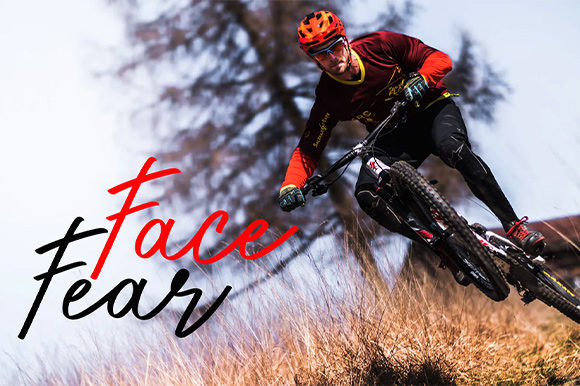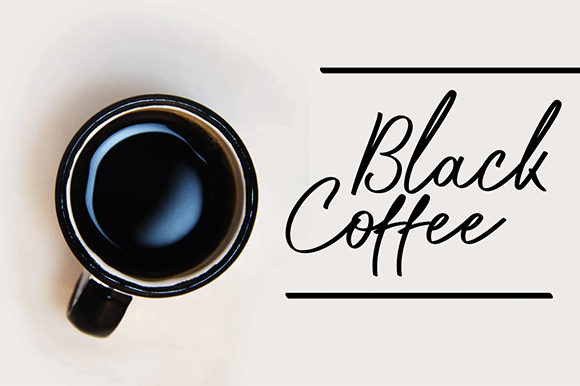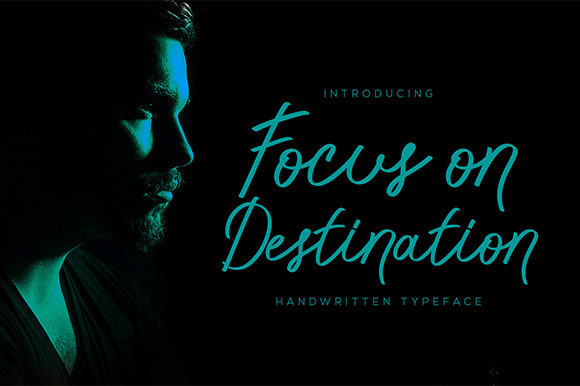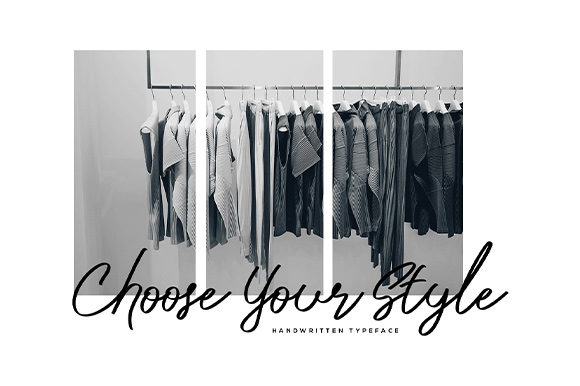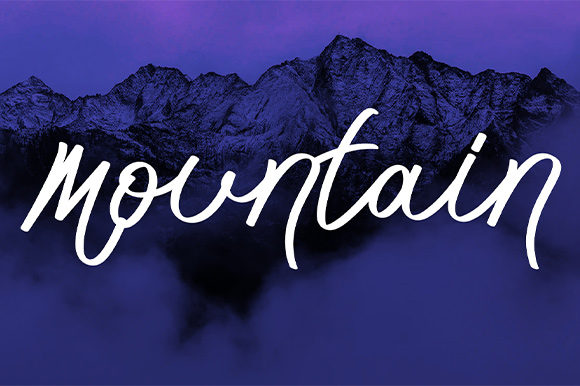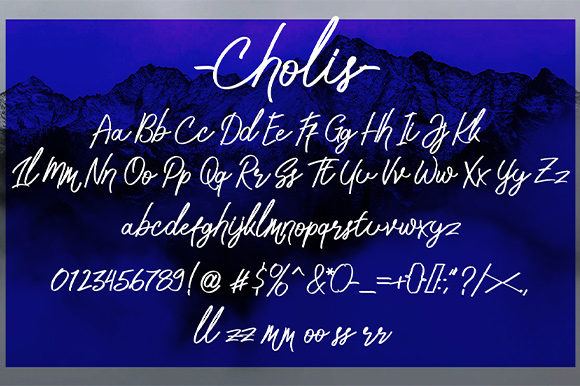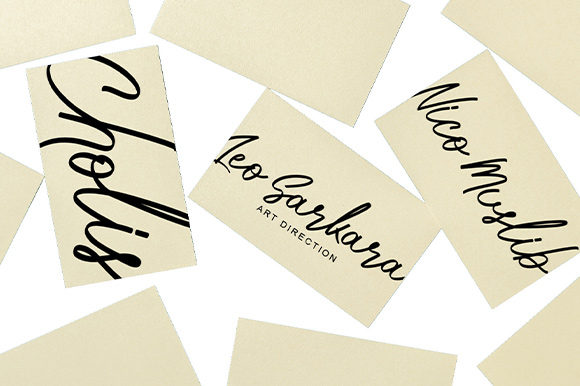
HomeScript FontsCholis Font Script Fonts Cholis Font FacebookXPinterestWhatsApp Cholis Font Poster 2 Cholis Font Poster 3 Cholis Font Poster 4 Cholis Font Poster 5 Cholis Font Poster 6 Cholis Font Poster 7 Cholis Font Poster 8 About Cholis Font Cholis is a friendly script font. Get inspired by its contemporary coolness. DOWNLOAD ON CREATIVE FABRICAThis font is sold and delivered by Creative Fabrica. Font Canyon may earn a commission if you buy through this link. People also explored Spooky Glitter Font Spike Thorny Font Sariez Font Lovely Font DT Augustina Slab 5 Subfamily Font Boho Font Bootspur JNL Font Fabrik Font Screengem 312 0 TagsCholis Font Previous articleRunning FontNext articleSheilla Font LEAVE A REPLY Cancel reply Comment: Please enter your comment! Name:* Please enter your name here Email:* You have entered an incorrect email address! Please enter your email address here Website: Save my name, email, and website in this browser for the next time I comment. Personal Use Free Susanna Personal Use Free Read more about this font Creativo Personal Use Free Read more about this font Ciggs Personal Use Free Read more about this font Trunk Shaped Personal Use Free Read more about this font BLOG Exploring Font Trends Shaping Communication in the Digital Era Fonts, like all design elements, are subject to trends. They play a crucial role in communicating a brand's personality,... Transform Your Website: Elevate Your Typography with 7 Best Web Font Generators How to Cut Any Font on Cricut: Convert a Font to SVG (Free) The 10 Best Handwriting Fonts to Add Personality to Your Designs